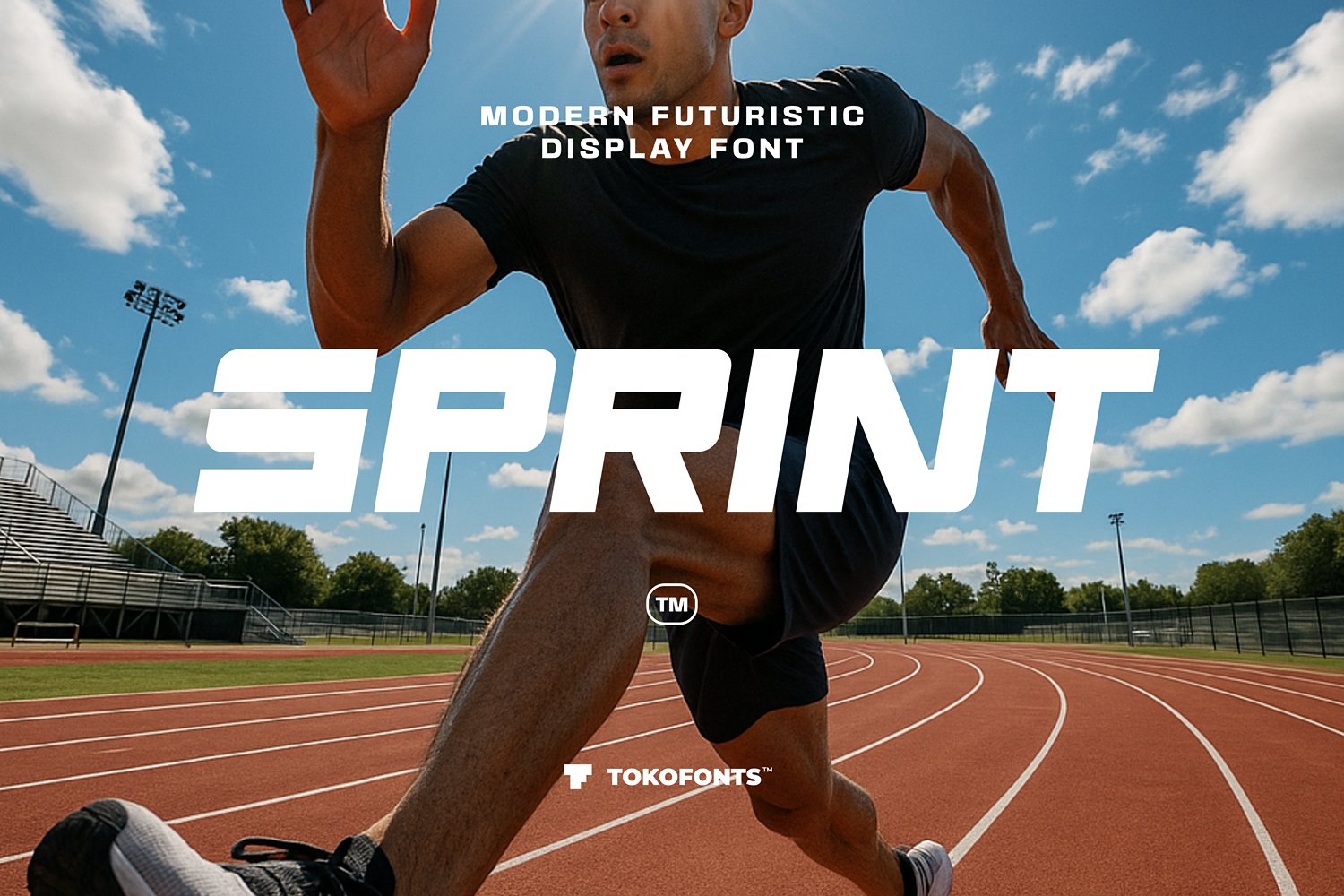
Sprint – Techno Sports Font
Sprint – Techno Sports Font is a flexible and reliable font created to fit multiple design needs, from branding and packaging to social media and editorial layouts. Sprint is a bold and energetic sports display font inspired by the fast-paced world of sport and competition. Designed with strong, dynamic letterforms, this typeface captures the power of racing, football, basketball, and baseball. Its sporty structure reflects the intensity of athletic performance, making it perfect for designs that require speed, strength, and impact in every headline.
With its bold and athletic appearance, Sprint works perfectly for projects related to gym branding, fitness campaigns, golf events, soccer promotions, and hockey graphics. The font delivers a powerful sporty impression while maintaining clarity and readability, making it ideal for sports posters, racing visuals, and competitive event designs that need a strong and energetic typographic presence.